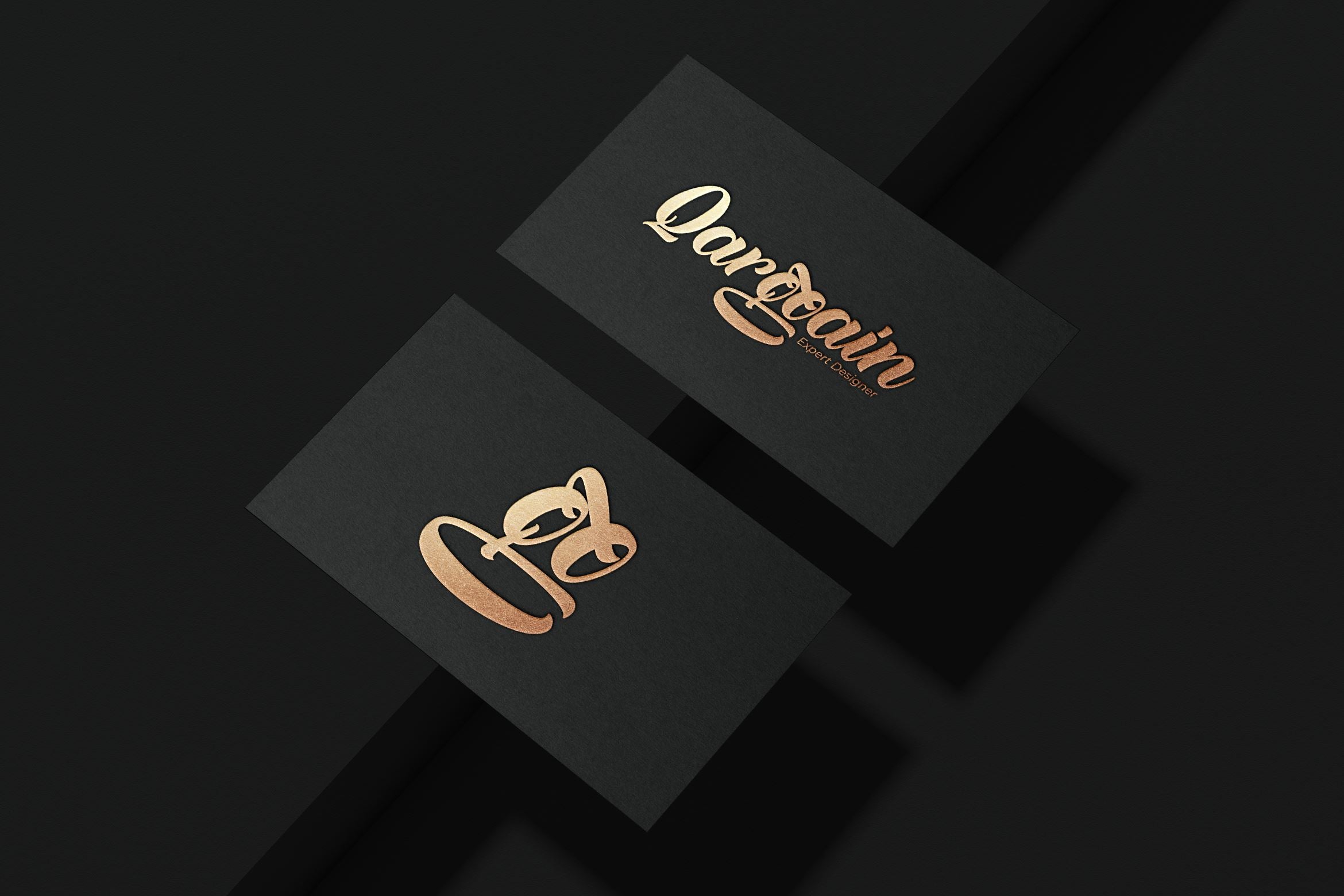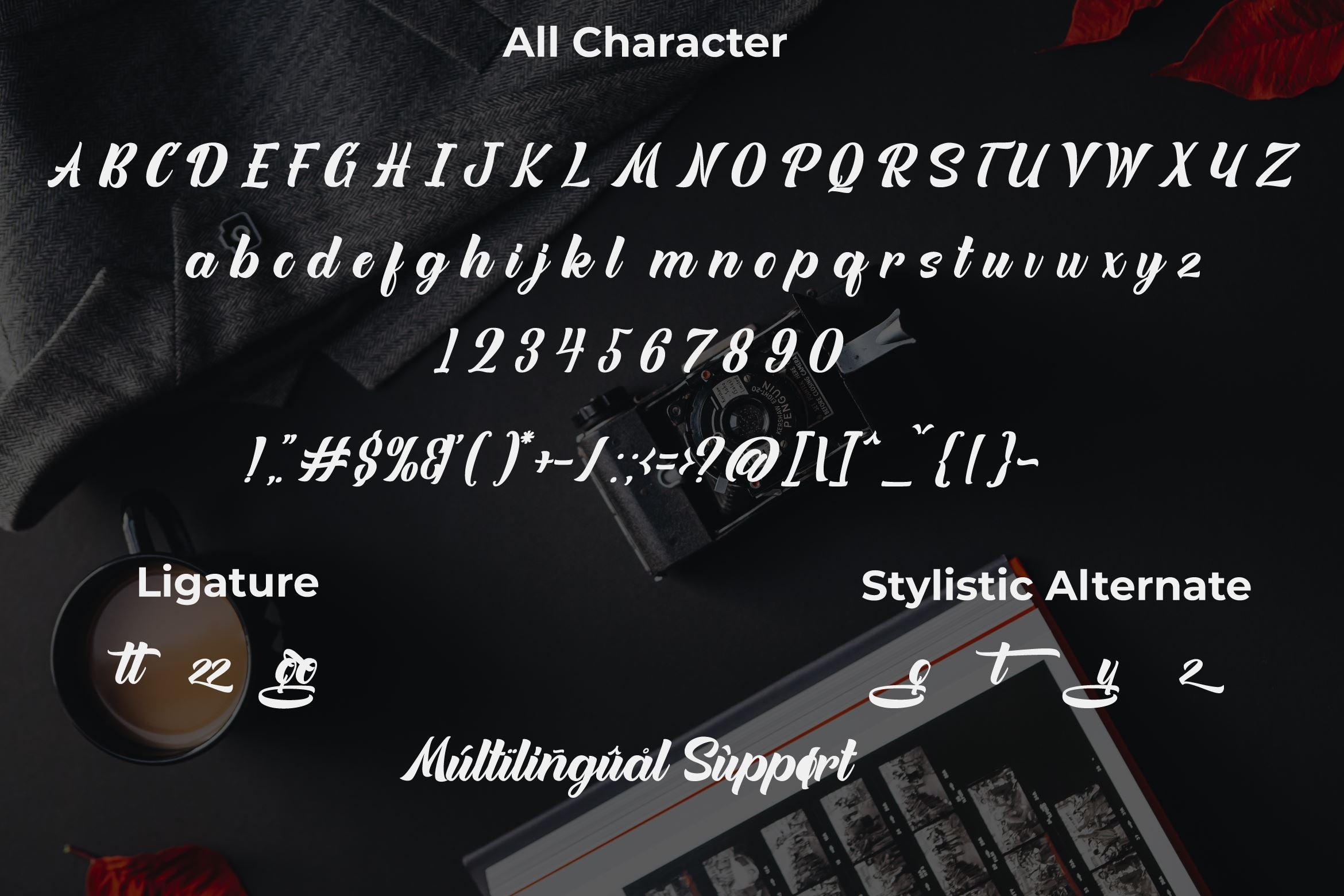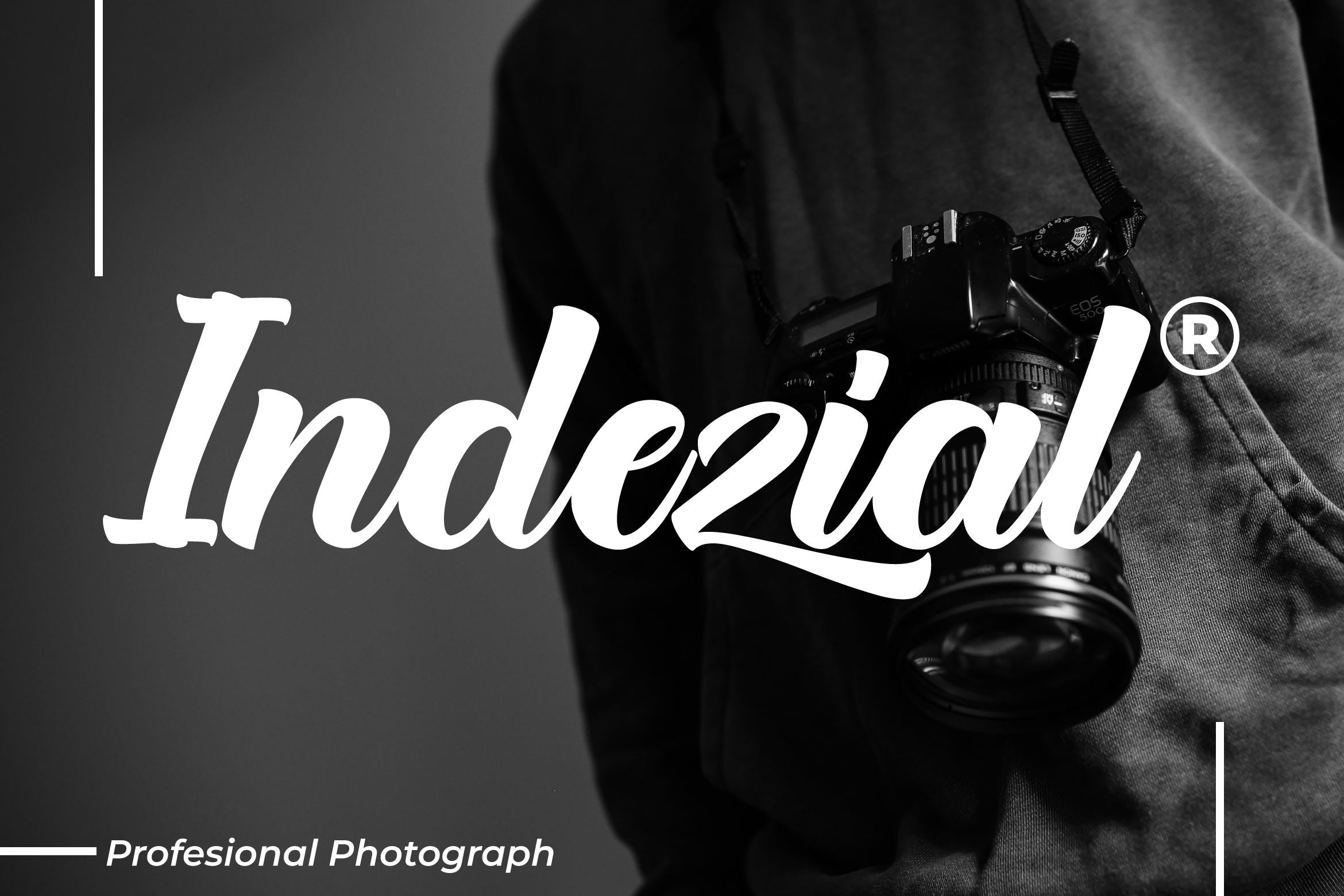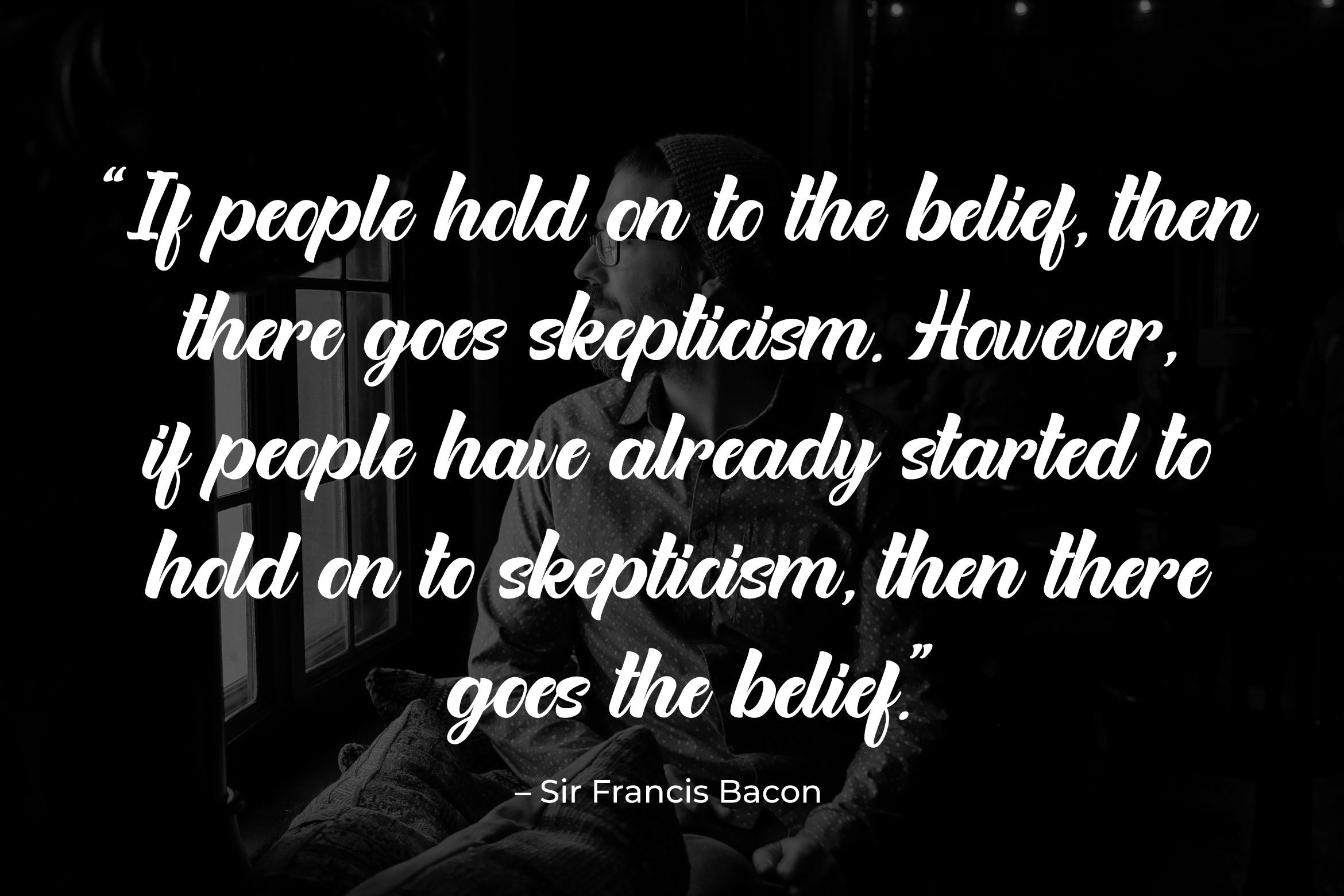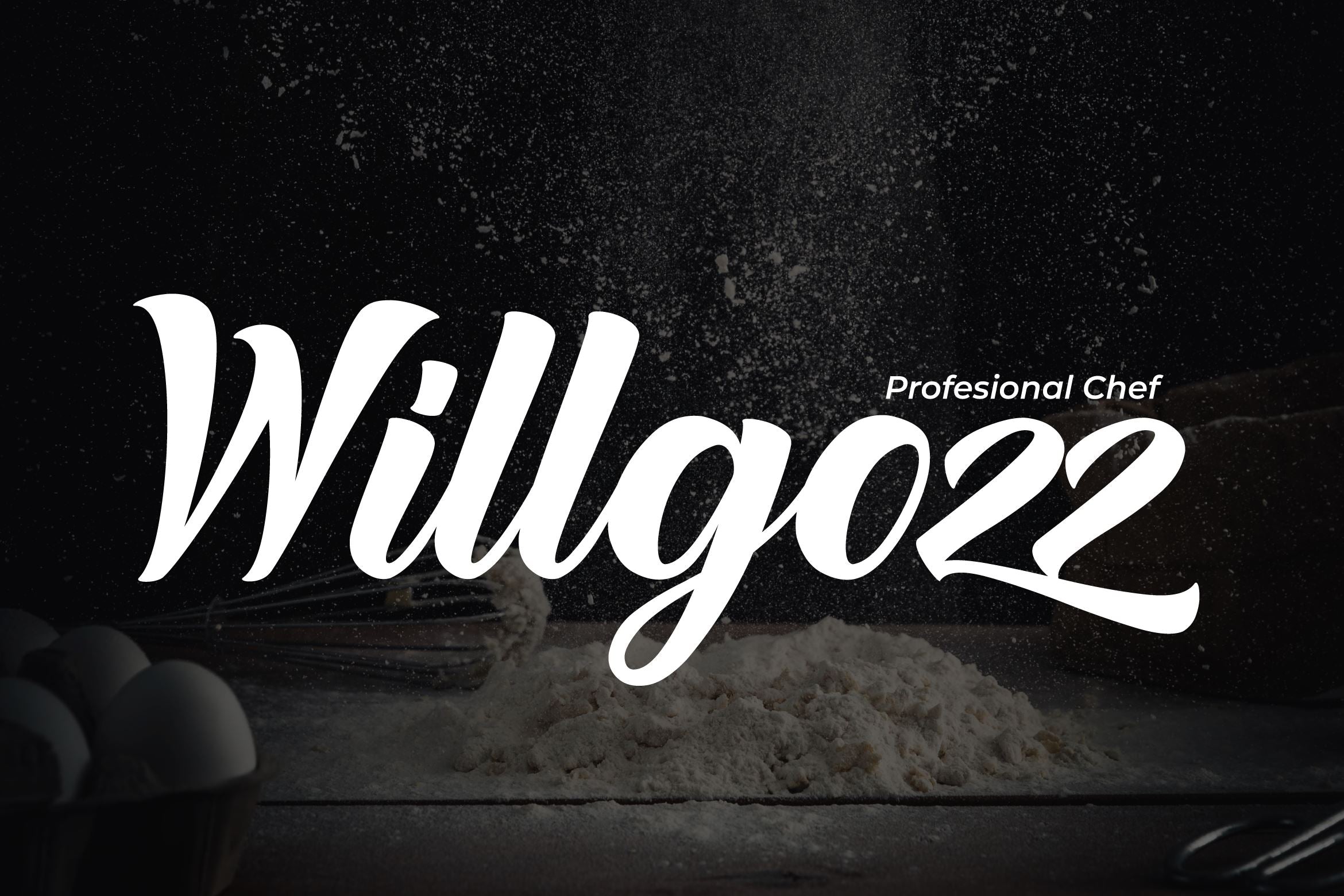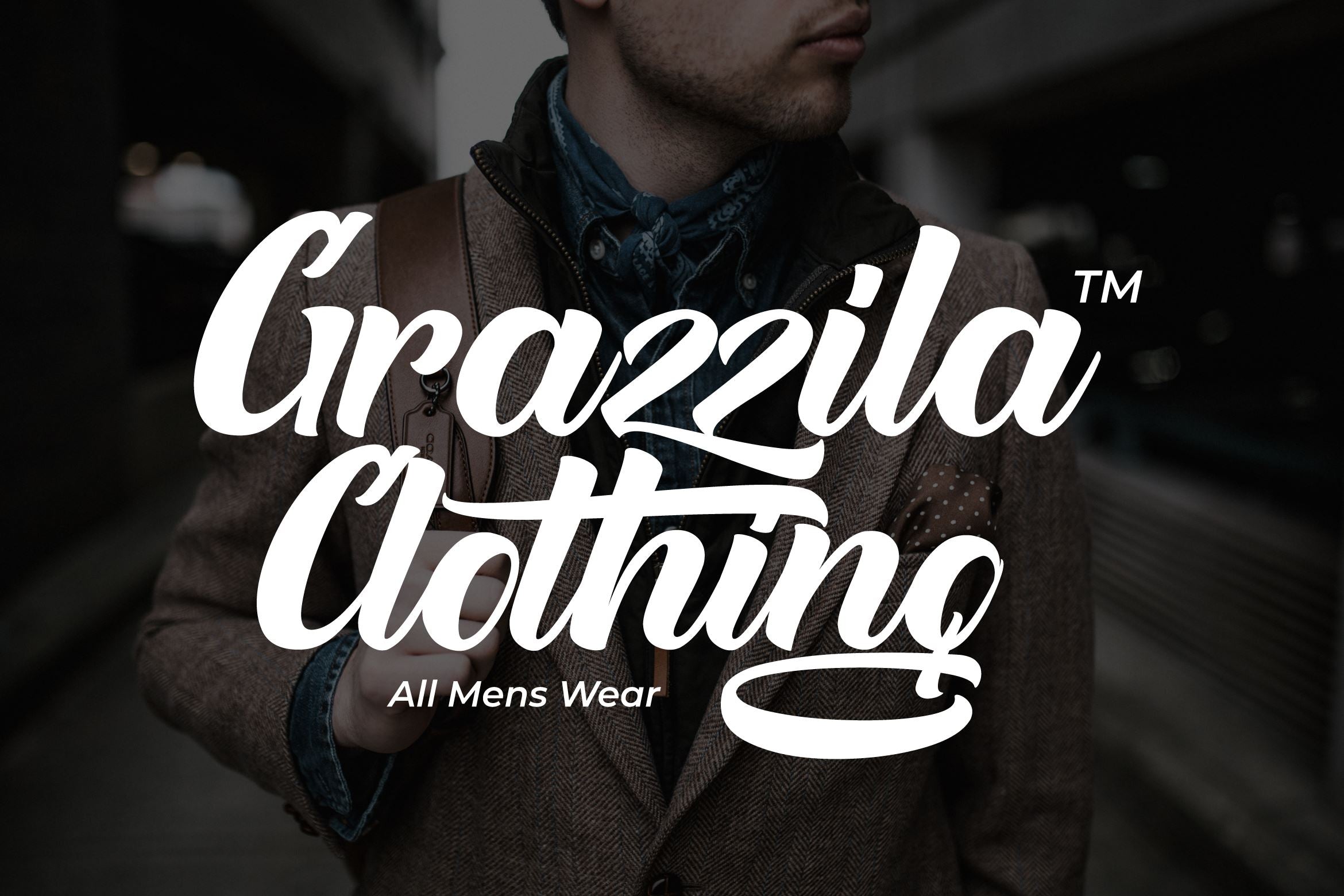
About Quitgan! Script Font.
Introducing Quitgan! Script Font. Quitgan! is an amazing handwritten font . Made with naturally handwritten. The font will make your design more beautiful and powerful. This font is suitable for any design like branding, quotes and etc. I hope you enjoy it !! Thanks for visiting and downloading my font!what’s inside : Quitgan! Script otf,ttf,woff Accents (Multilingual Characters) PUA encoded Numerals and Punctuations (OpenType Standard) Many of alternates